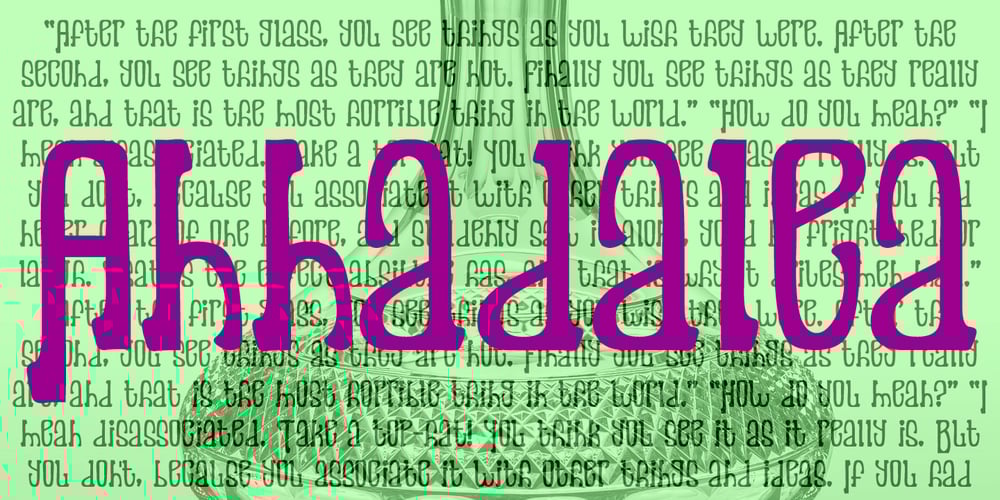
Annadalea Font Family was designed by E Victor C and published by EVCco. Annadalea contains 1 styles and family package options. This typeface pays homage to numerous Victorian and Art Nouveau predecessors, while straying somewhat beyond their usual conventions. All lowercase letters ascend in unison, whereas capitals descend below the baseline. A rigid set of uniform strokes keeps the chaos reigned in, while various calculated inconsistencies affect a vaguely hand-drawn quality to this quirky, downright decadent font.Comes packaged with the standard complement of alpha-numeric glyphs, punctuation marks, mathematical symbols, and Western European diacritics.